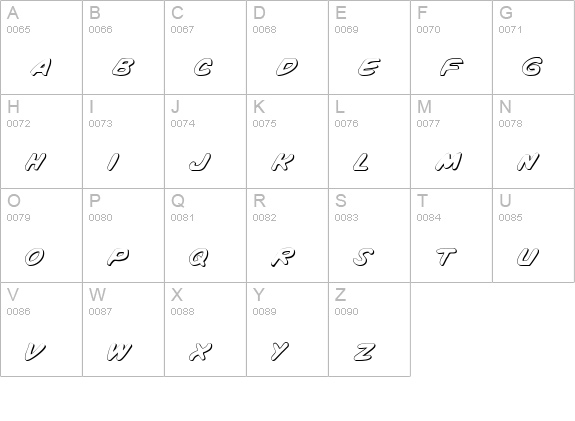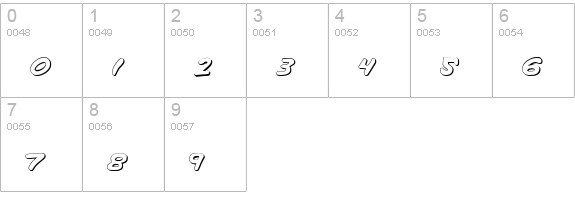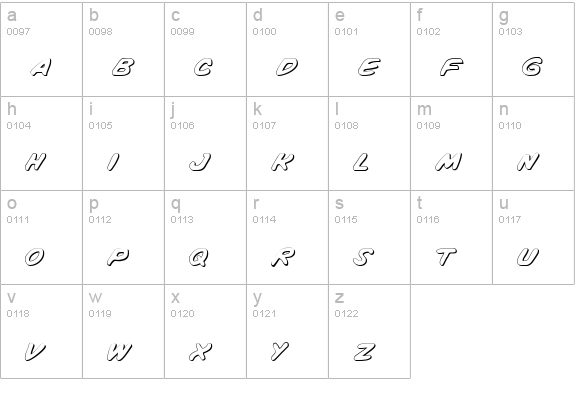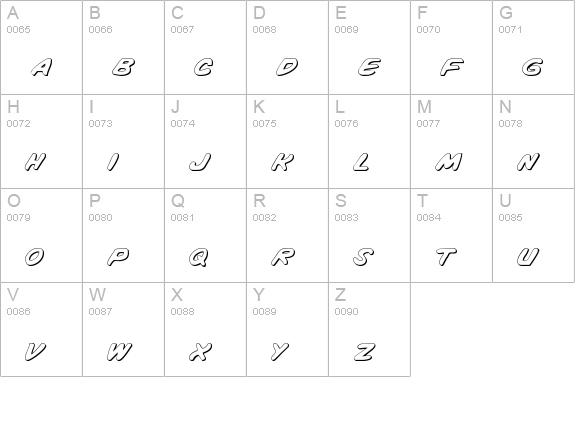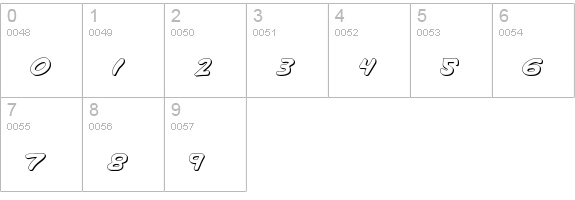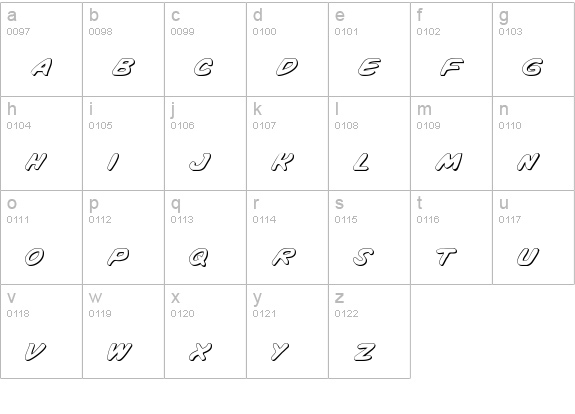
Vigilante Notes Shadow Font Details
Introducing Vigilante Notes Shadow font, a captivating and enigmatic typeface that exudes a sense of mystery and intrigue. With its bold and dramatic letterforms, this font is perfect for adding a touch of edginess to any design project. Vigilante Notes Shadow font is characterized by its unique shadowed effect, which adds depth and dimension to each character. The sharp angles and intricate details create a visually striking appearance, making it an ideal choice for headlines, posters, logos, and more. Not only does Vigilante Notes Shadow font possess an undeniable allure, but it also offers the incredible advantage of being freely available to download at FontsMarket.com. Yes, you read that right – this extraordinary font can be yours without spending a dime. Whether you're a professional designer or a passionate hobbyist, this free font allows you to unleash your creativity without any financial constraints. With Vigilante Notes Shadow font, you have the freedom to explore endless possibilities. Its versatility enables it to adapt to a wide range of design projects, from modern and urban themes to vintage and retro aesthetics. Its eye-catching presence will undoubtedly leave a lasting impression on viewers, elevating your designs to new heights. So why wait? Take advantage of this incredible opportunity and download Vigilante Notes Shadow font today, completely free of charge, at FontsMarket.com. Unleash your imagination, make a statement, and captivate your audience with this remarkable typeface.